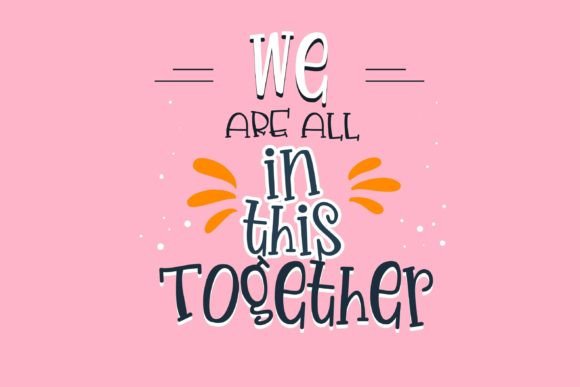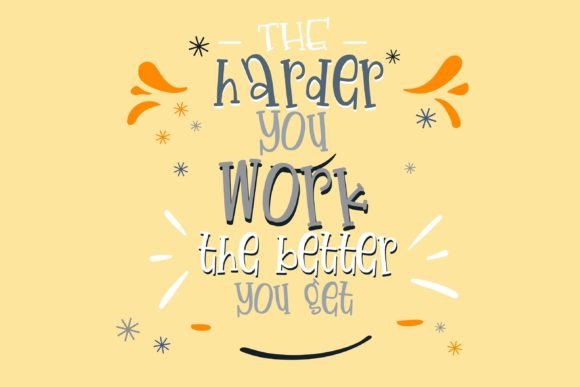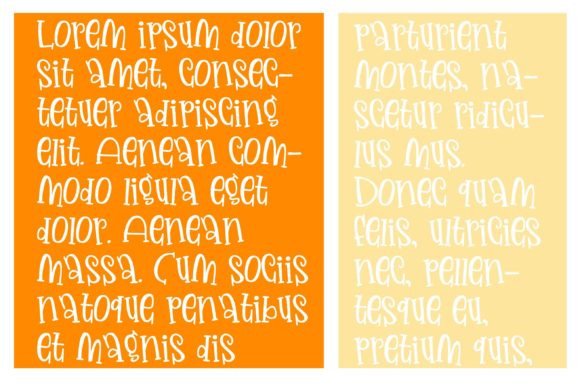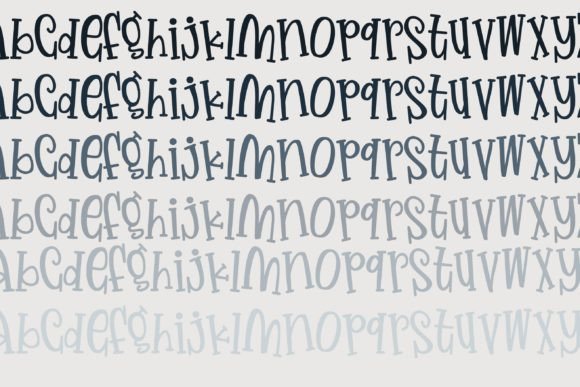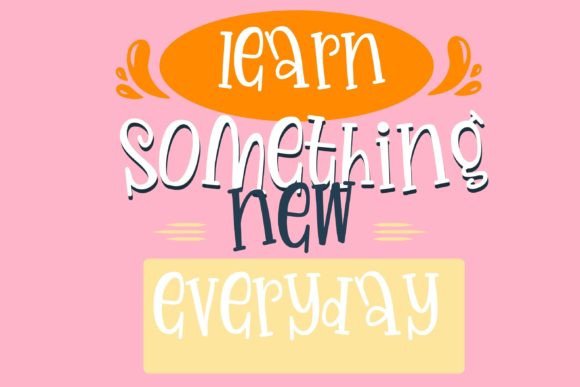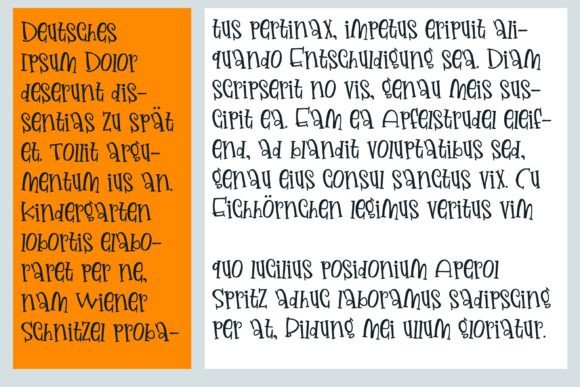
Introducing Glucose Font: A Whimsical Handwritten Print with Slab Serifs
Are you looking for a font that adds a touch of personality to your designs? Look no further than Glucose Font, a hand-written print with added slab serifs and a bit of toggle in the lettering for a whimsical look. In this article, we’ll dive into the world of handwritten fonts, explore the features of Glucose Font, and discuss how it can be used to elevate your designs.
What is a Handwritten Font?
A handwritten font is a font that is designed to look like it was written by hand. It is often used for invitations, greeting cards, and other items where a personal touch is desired. Handwritten fonts can add a level of warmth and personality to a design that is hard to achieve with more traditional fonts. They can also be used to create a sense of nostalgia or vintage charm.
Features of Glucose Font
Glucose Font is a unique and eye-catching font that is sure to add a touch of whimsy to your designs. Some of its key features include:
- Handwritten print with added slab serifs
- Toggle in the lettering for a playful, whimsical look
- Perfect for invitations, greeting cards, and other craft projects
- Easy to read and understand, making it perfect for body text or headings
Using Glucose Font in Your Designs
Glucose Font is a versatile font that can be used in a variety of design projects. Here are a few ideas to get you started:
- Invitations: Use Glucose Font to create custom invitations for weddings, birthday parties, and other special occasions.
- Greeting Cards: Add a personal touch to your greeting cards with Glucose Font, perfect for birthdays, holidays, and other celebrations.
- Craft Projects: Use Glucose Font to add a touch of personality to your craft projects, such as scrapbooking, journaling, and more.
- Digital Designs: Use Glucose Font in your digital designs, such as social media graphics, blog posts, and more.
Tips for Using Handwritten Fonts Effectively
While handwritten fonts like Glucose Font can add a touch of personality to your designs, they can also be overwhelming if not used effectively. Here are a few tips to keep in mind:
- Use it sparingly: Use handwritten fonts like Glucose Font sparingly, such as in headings or titles, to add visual interest to your design.
- Pair it with a simple font: Pair Glucose Font with a simple font, such as a sans-serif font, to create visual contrast and make your design easier to read.
- Consider the occasion: Consider the occasion and the tone you want to convey when choosing a handwritten font like Glucose Font.
Glucose Font is a unique and eye-catching handwritten font that is sure to add a touch of whimsy to your designs. With its added slab serifs and toggle in the lettering, it’s perfect for invitations, greeting cards, and other craft projects. By following the tips outlined in this article, you can use Glucose Font effectively and create designs that are both visually appealing and easy to read.
- What is Glucose Font? Glucose Font is a hand-written print with added slab serifs and a bit of toggle in the lettering for a whimsical look.
- What is Glucose Font used for? Glucose Font is often used for invitations, greeting cards, and other craft projects.
- Is Glucose Font easy to read? Yes, Glucose Font is easy to read and understand, making it perfect for body text or headings.